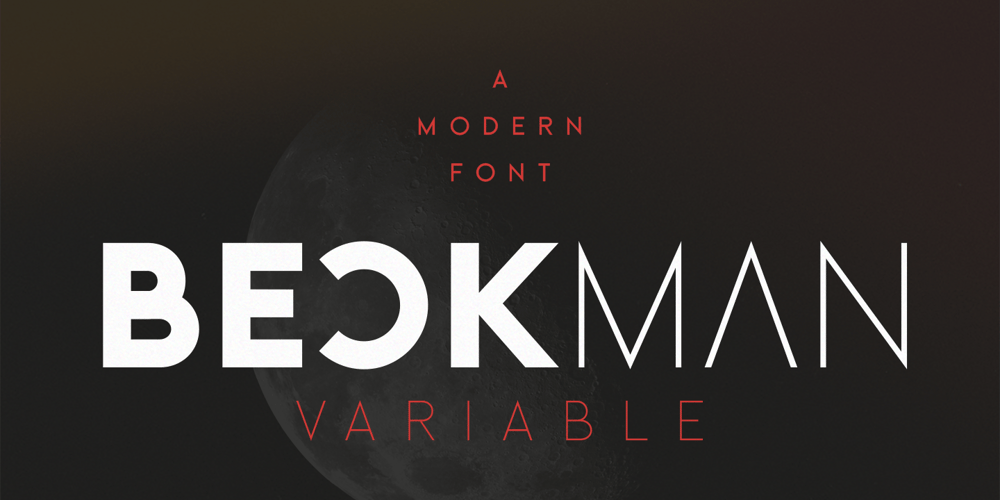
Beckman Variable
Beckman Variable font
Beckman Variable Font Family was designed by Wahyu Rahmawan and published by Factory738. Beckman Variable contains 1 styles and family package options. Beckman is a sleek, minimalist sans-serif font family that blends geometric and clean design elements for a contemporary look. It offers modern, polished capital letters that enhance versatility. Beckman is the perfect choice to elevate your headlines, branding, logos, posters, magazines, and more.Thanks for looking, and I hope you enjoy it.